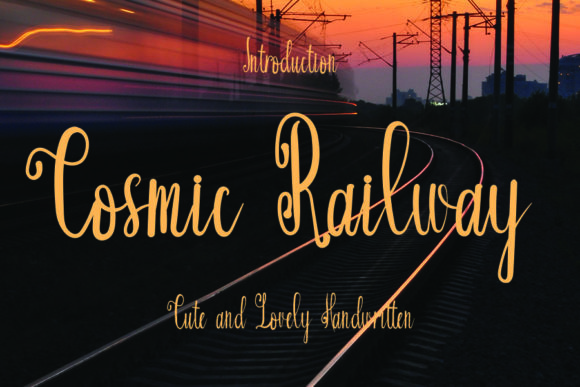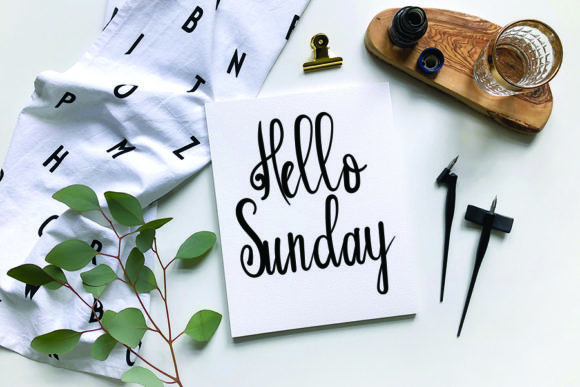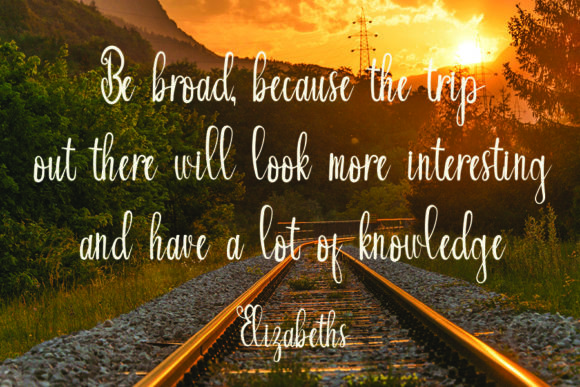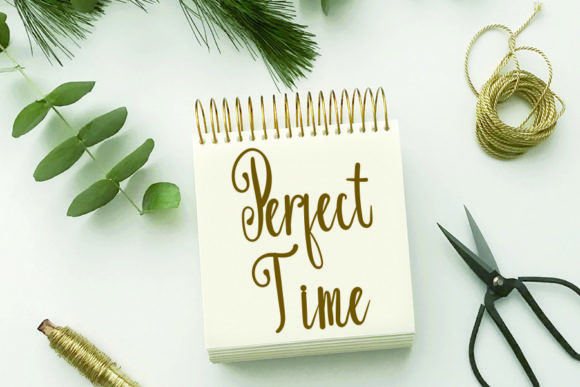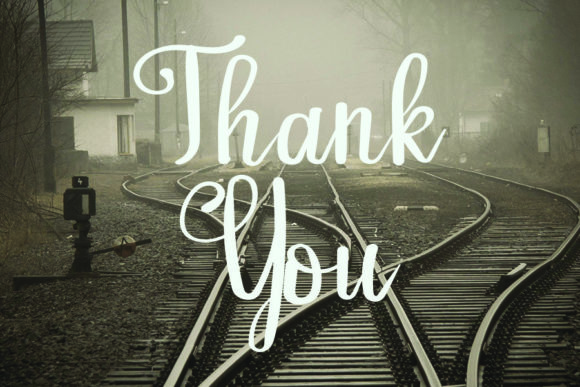
Cosmic Railway Font
About Cosmic Railway Font
Cosmic Railway is a lovely and timeless handwritten font. It is the best choice for creating eye catching logos, branding and quotes. Every letter has a unique and beautiful touch, which will make your design come alive!